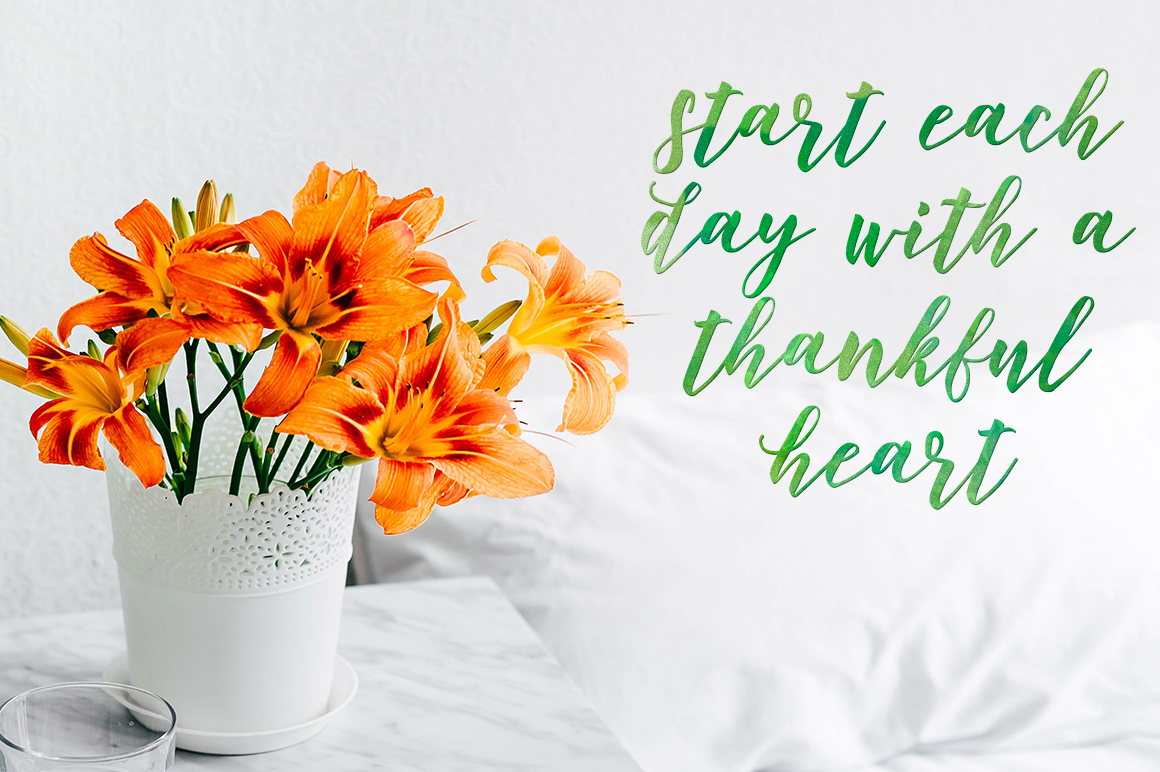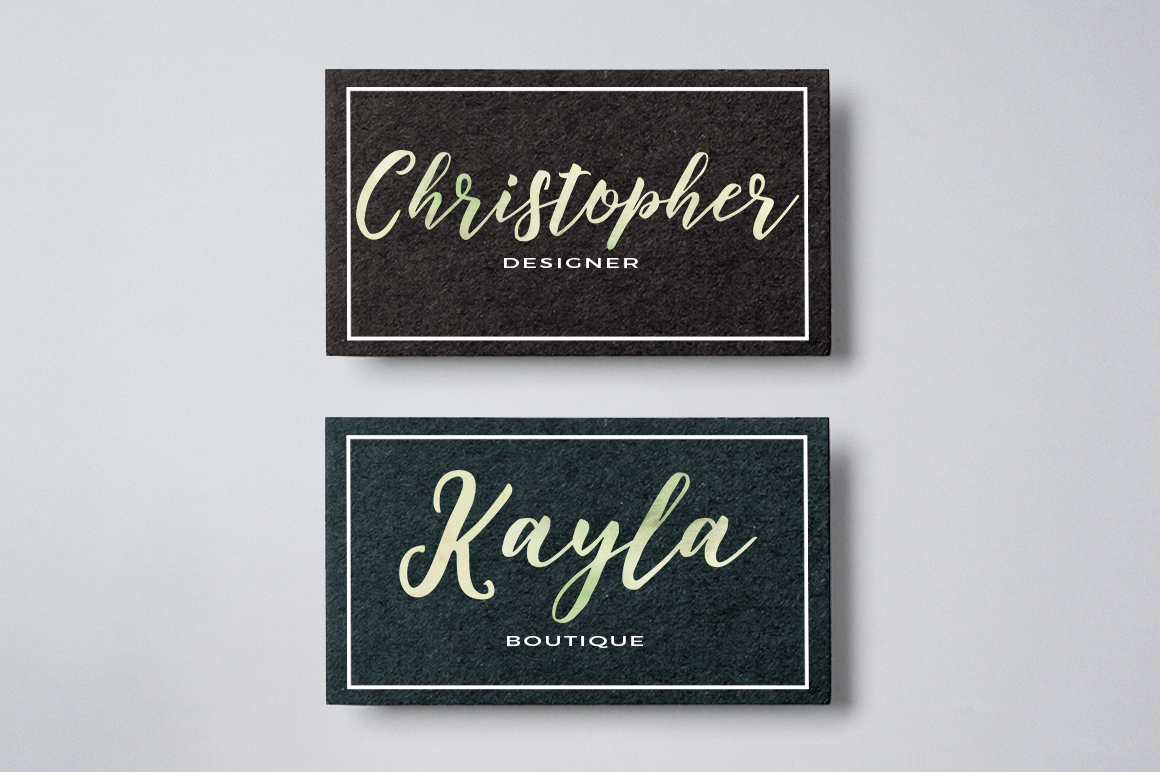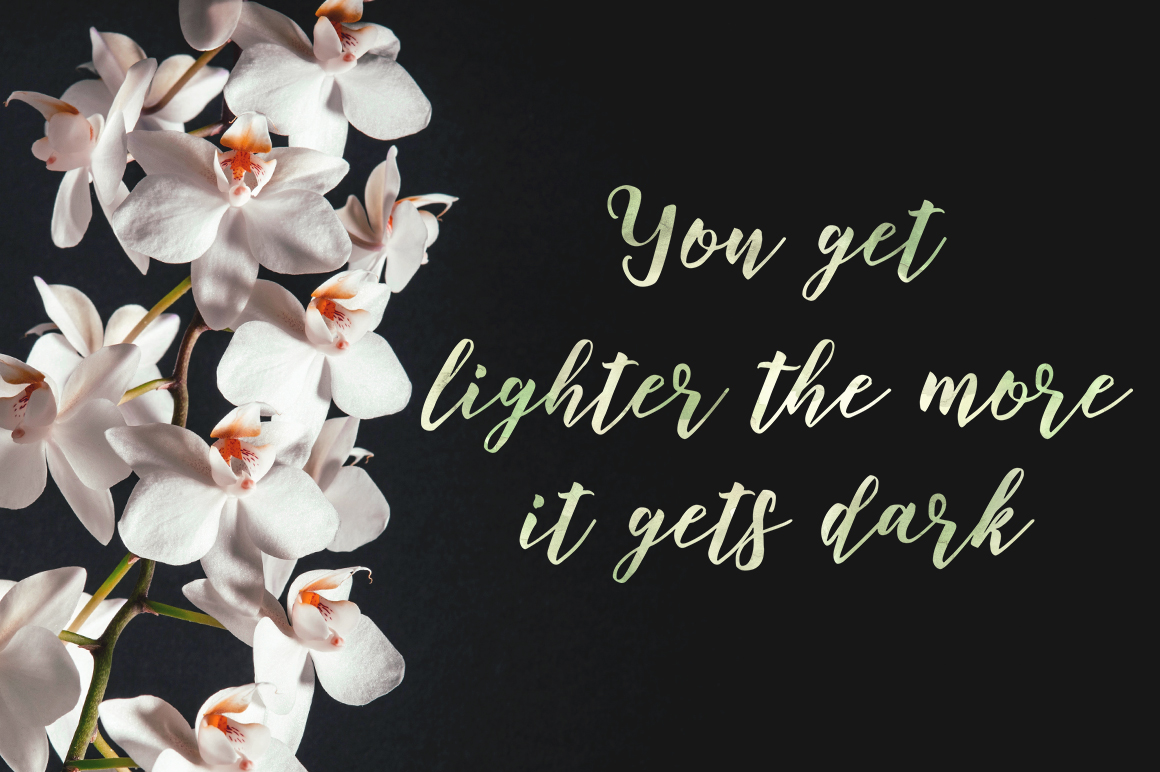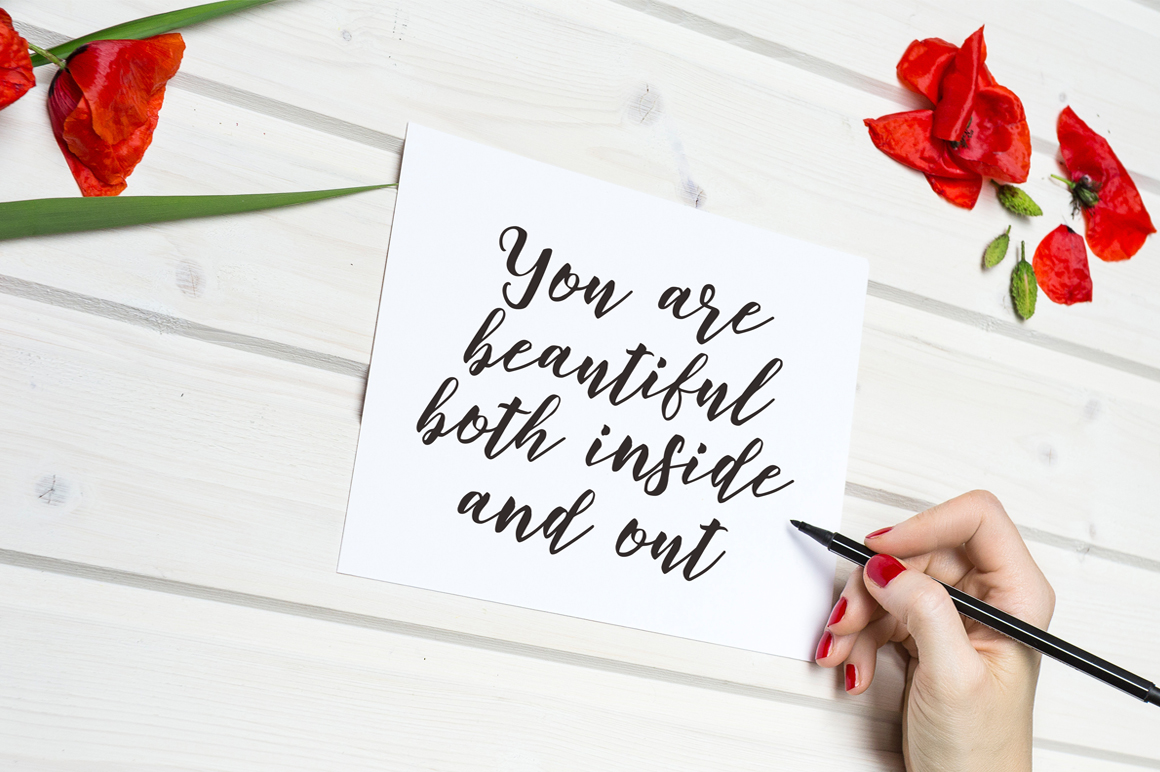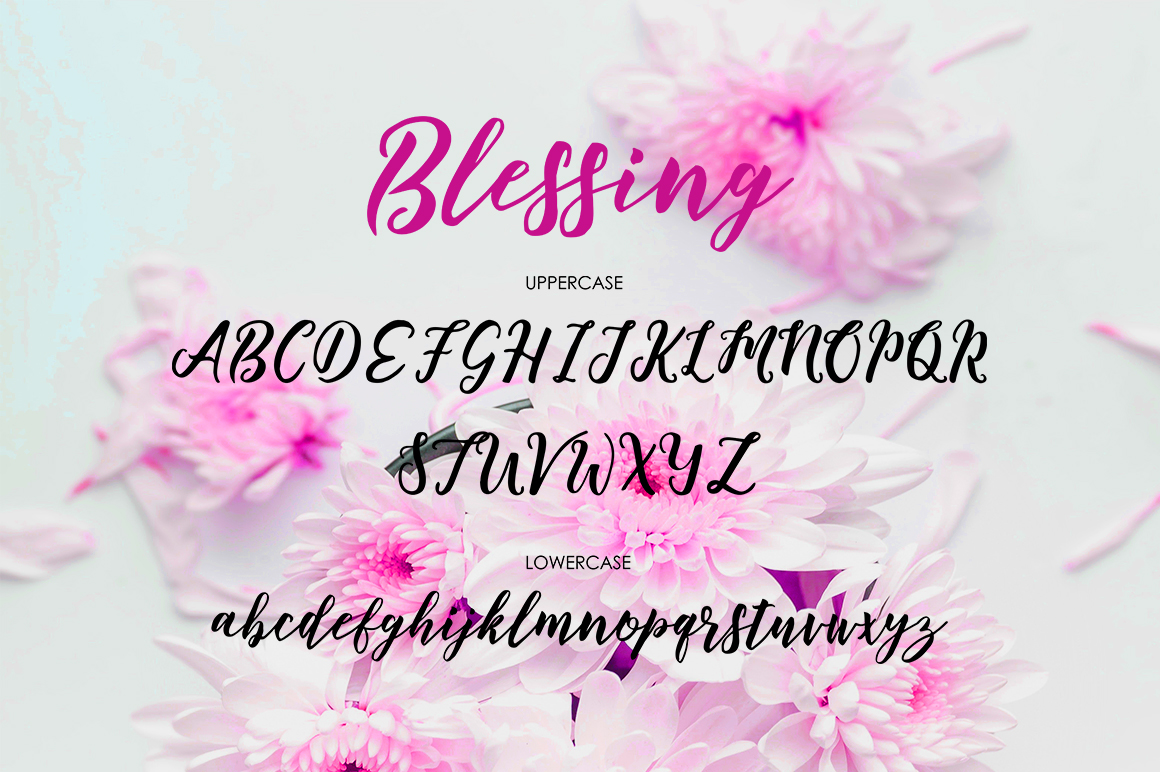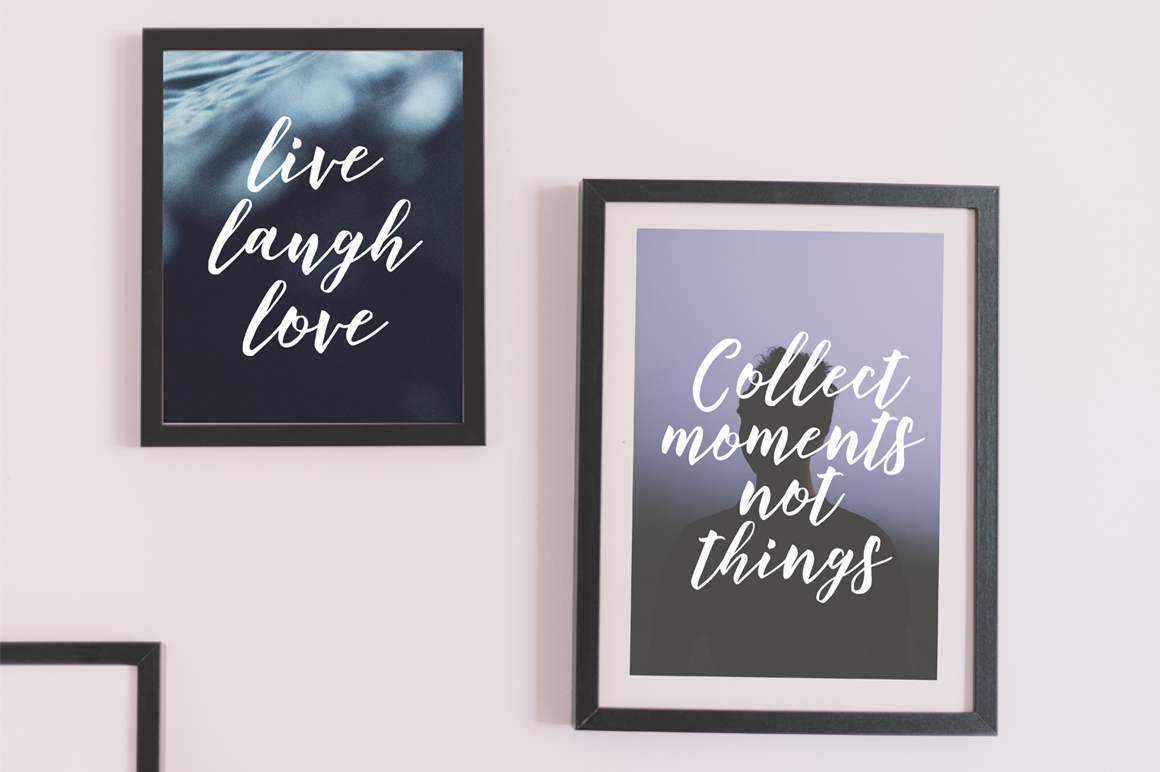
The Blessing Font: A Modern Organic Marvel for Your Creative Projects
I still remember the frustration of working on a design project, pouring my heart and soul into it, only to be held back by one thing: the font. It was like trying to find the perfect pair of shoes to complete an outfit – you know it’s out there, but it’s nowhere to be found. That’s when I stumbled upon the Blessing font, and it was like a breath of fresh air. In this article, I’ll share my experience with this beautiful modern organic font, its features, and how to make the most of it in your creative projects.
An Honest Review of Blessing Font
What I Love About Blessing Font
• ✨ Natural Flow: Blessing font has a natural, organic feel to it that makes it perfect for a wide range of projects, from branding and packaging to blogs and social media graphics.
• ✅ Versatility: This font works great on various backgrounds and can be paired with many other fonts, making it a versatile addition to your font library.
• 💡 OpenType Features: Blessing font comes with a range of OpenType features, including stylistic alternates, ligatures, and glyphs, which allow for creative experimentation and customization.
While Blessing font is amazing, it’s not perfect. Here are a few things to keep in mind:
• ⚠️ Legibility at Small Sizes: Like many script fonts, Blessing can be a bit tricky to read at very small sizes. It’s best used at larger sizes or for headlines.
• 🤔 Kerning: Some users have reported issues with kerning, particularly with certain letter combinations. However, this can often be adjusted in design software.
The Story Behind Blessing Font
Blessing font was designed with the intention of creating a modern, organic font that would bring a touch of natural elegance to design projects. The designer aimed to craft a font that would be versatile, easy to read, and beautiful to look at. With its unique blend of classic and modern elements, Blessing font has become a popular choice among designers and crafters.
Font Name Blessing Font
Author Great Studio
Q: What type of projects is Blessing font best suited for?
A: Blessing font is versatile and can be used for a wide range of projects, including branding, packaging, blogs, social media graphics, and more.
Q: Is Blessing font easy to read?
A: Blessing font is generally easy to read, especially at larger sizes. However, like many script fonts, it may be less legible at very small sizes.